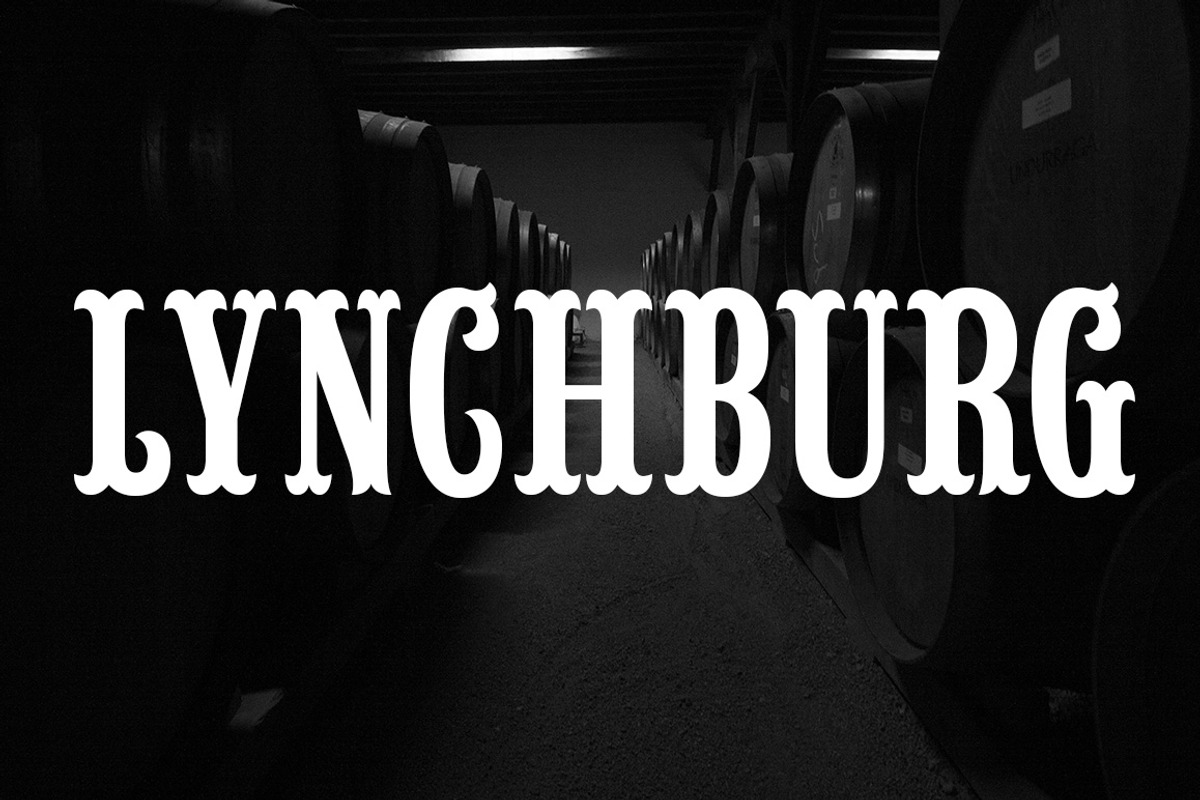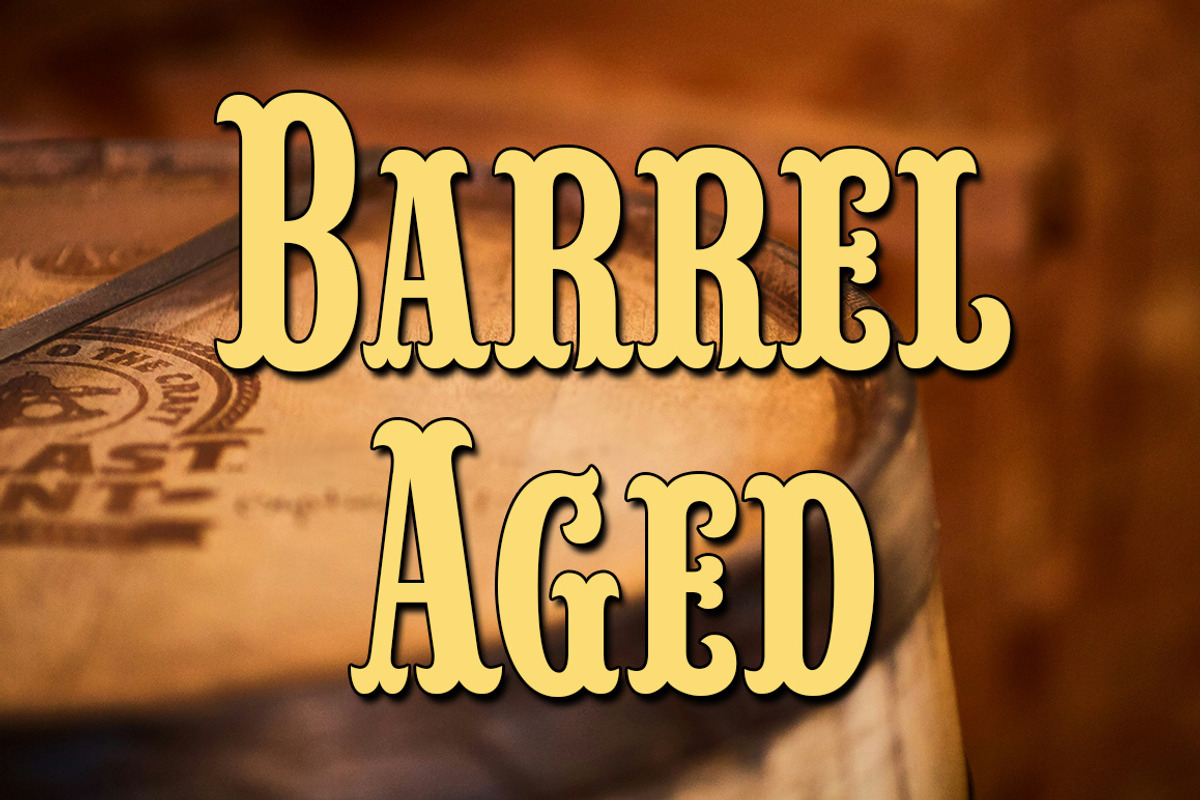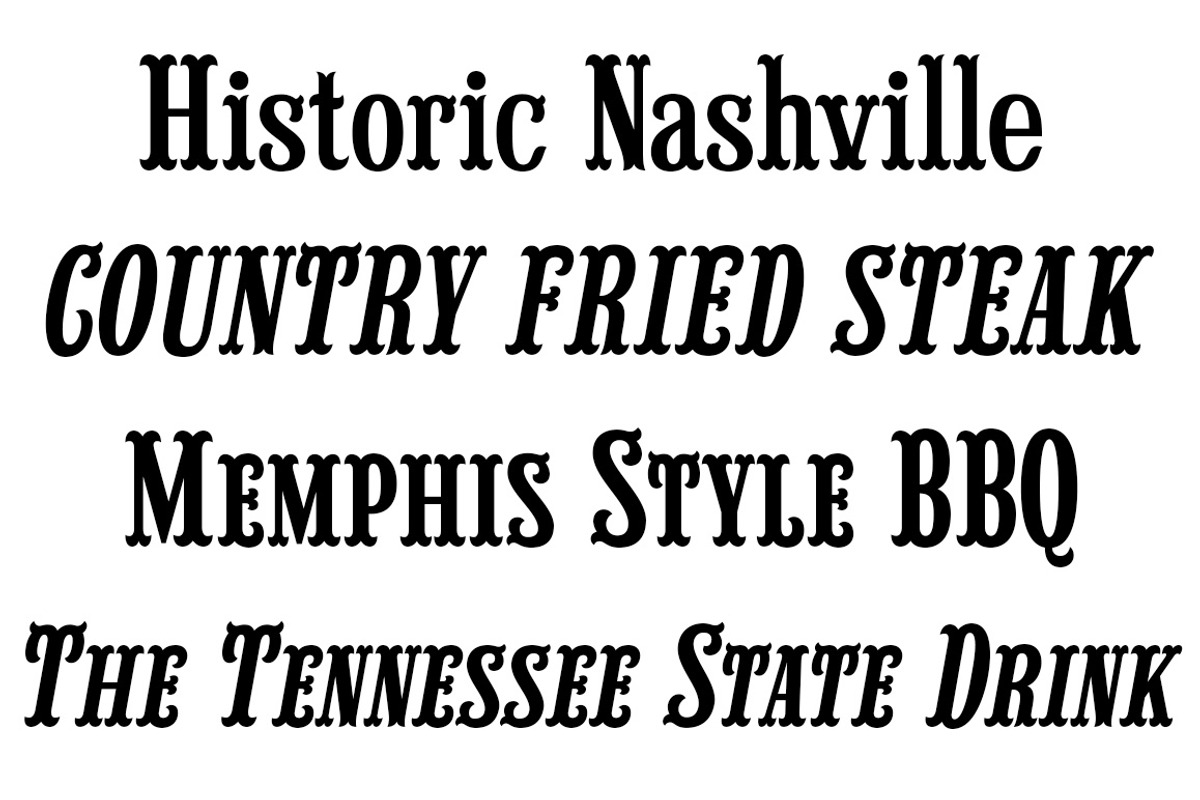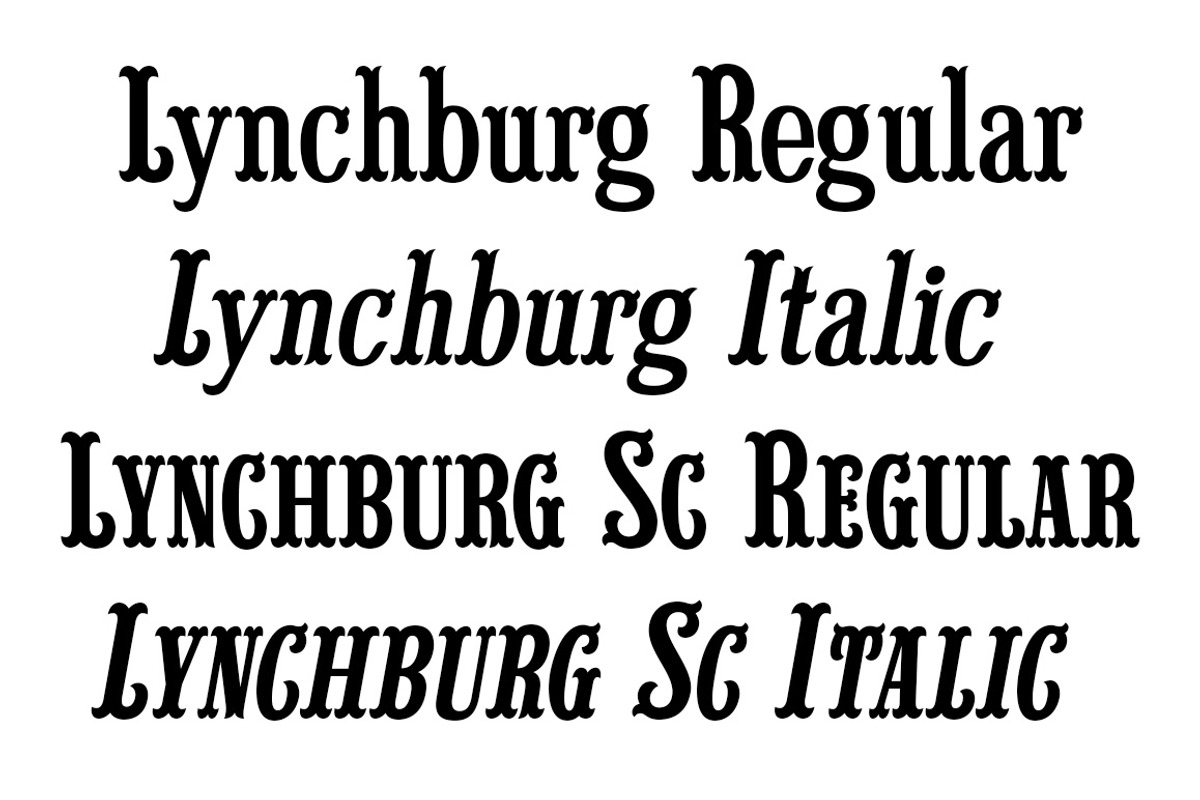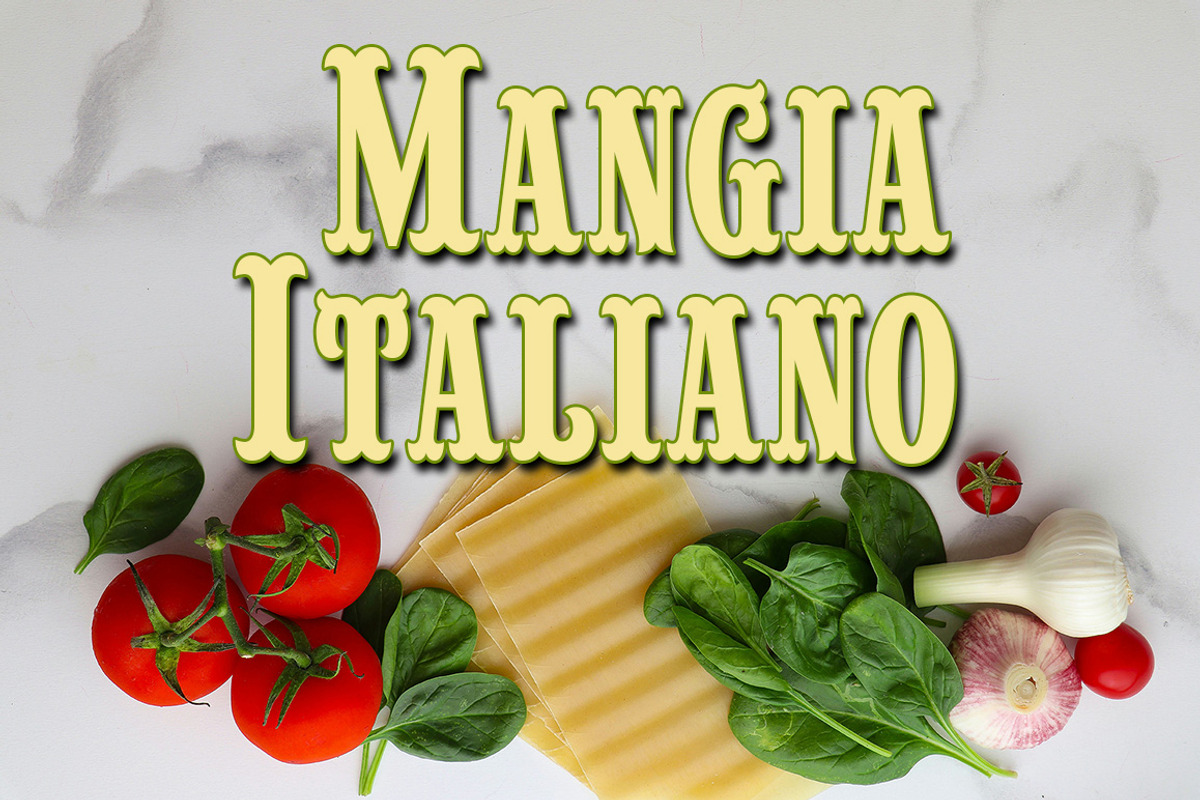
Lynchburg
Lynchburg was patterned after the Jack Daniel's green label whiskey logo.
Originally released in 2005 this new 2024 version has been refined with a slightly taller lowercase, new italics and small caps versions have also been added to the family.
Lynchburg is ideal for barbecue and burger restaurant menus, it's perfect for your next t-shirt design and chili cook off.